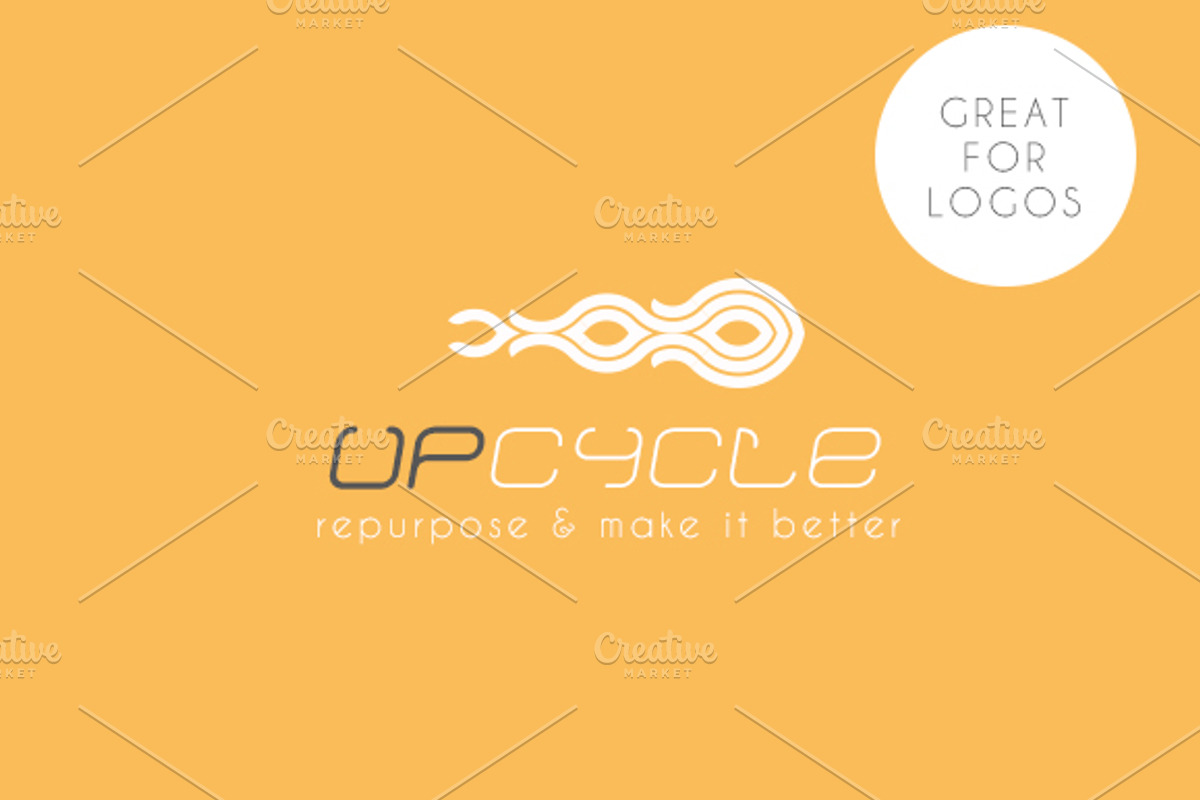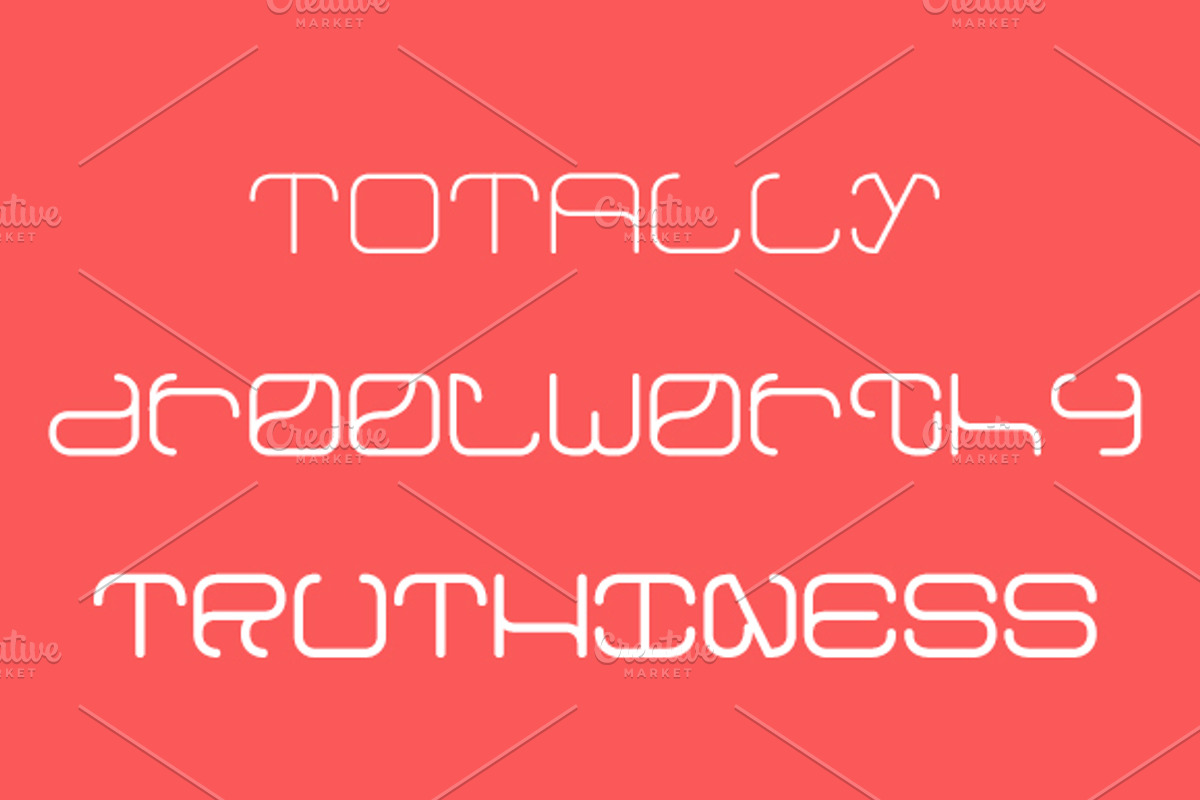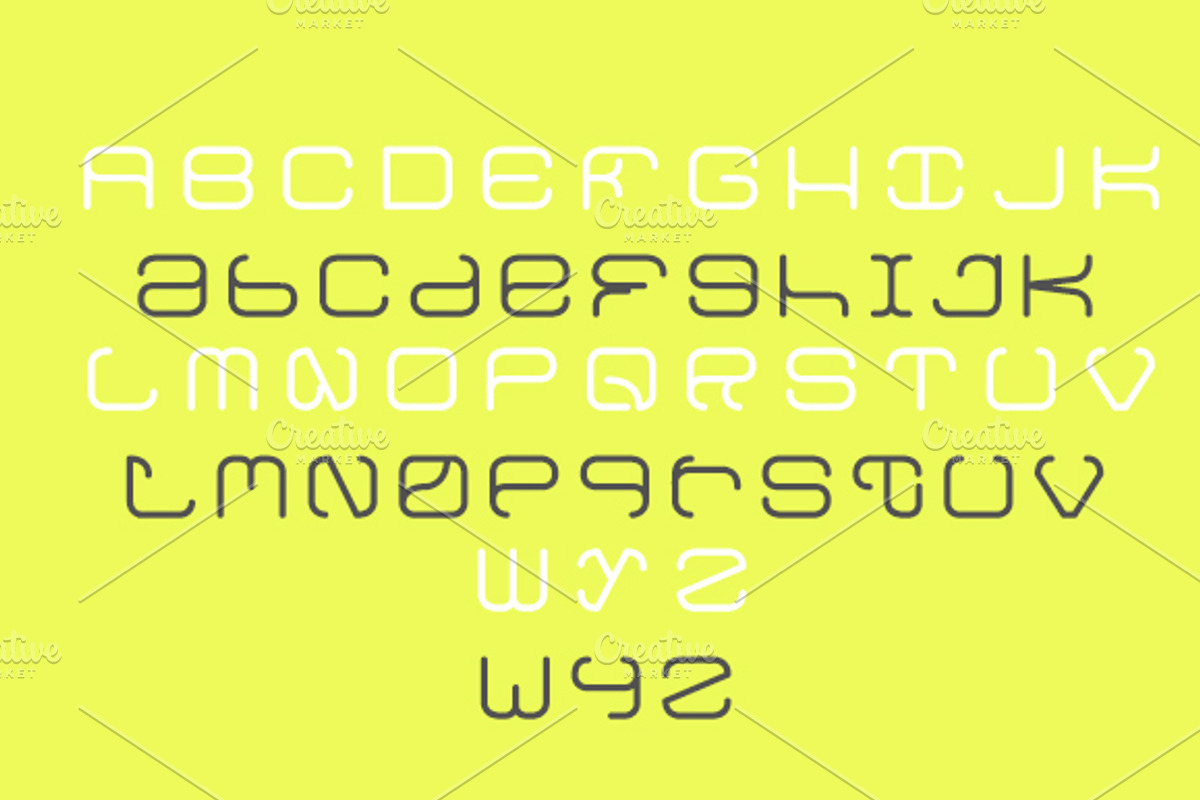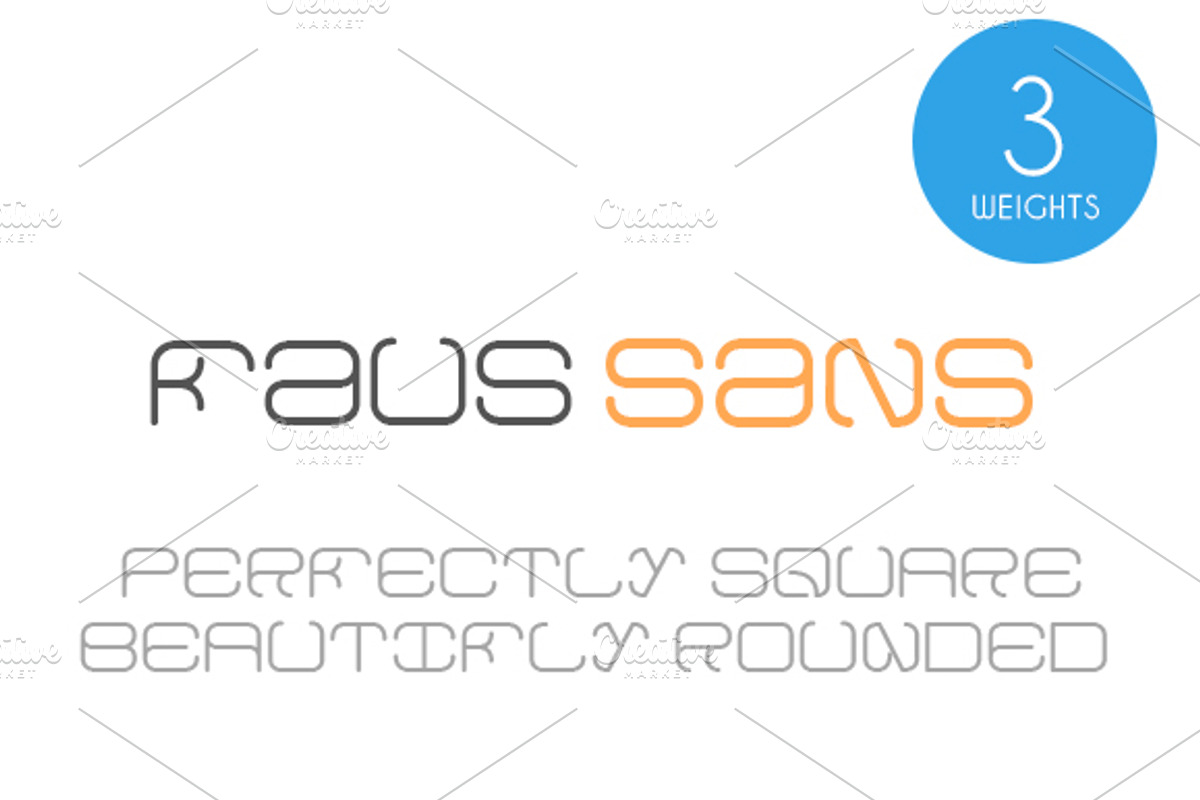
Faus Sans Font Family
Faus Sans Font Family by LuisFaus is a font selected for branding, posters, packaging, typography.
- It requires a higher kerning when in bold or black.
- Faus Sans Regular
- Faus Sans Bold
- Faus Sans Black
Faus Sans Font Family by LuisFaus fits naturally into Branding, posters, packaging, typography.